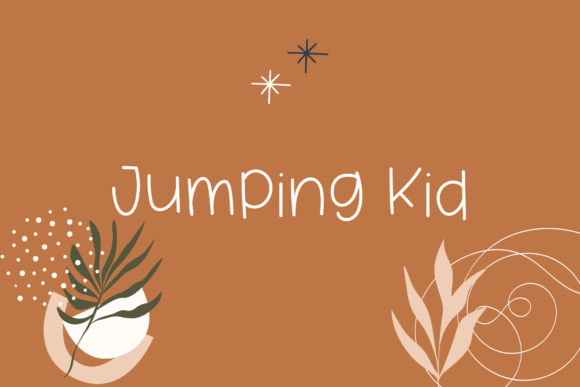
Jumping Kid Font: The Ultimate Guide to This Cute Handwritten Font
In the world of digital design, fonts play a crucial role in conveying emotions and setting the tone for various projects. One such font that has gained popularity among designers and crafty enthusiasts is the Jumping Kid Font. This cute handwritten font has become a favorite among many for its playful and energetic vibe, making it perfect for a wide range of applications. In this article, we’ll dive into the world of Jumping Kid Font, exploring its features, uses, and benefits.
What is Jumping Kid Font?
Jumping Kid Font is a modern, handwritten font designed to add a touch of playfulness and whimsy to various design projects. Its unique and quirky style makes it stand out from other fonts, making it perfect for those looking to add some personality to their work.
This font is characterized by its irregular lettering, varying line widths, and joyful feel. It’s reminiscent of handwritten notes and doodles, making it an excellent choice for projects that require a personal touch.
Features of Jumping Kid Font
- Handwritten style: Jumping Kid Font boasts a genuine handwritten look, making it perfect for projects that require a personal touch.
- Playful and energetic: The font’s playful and energetic vibe makes it ideal for designs that need to convey a sense of fun and excitement.
- Versatile: Jumping Kid Font can be used for a wide range of projects, from digital notes and journaling to branding and social media graphics.
- Easily readable: Despite its playful nature, Jumping Kid Font is easy to read, making it perfect for body text and captions.
Uses of Jumping Kid Font
Jumping Kid Font is an incredibly versatile font that can be used for various design projects. Here are some of the most popular uses of this font:
- Journaling and digital notes: Add a personal touch to your digital journaling and note-taking with Jumping Kid Font.
- Scrapbooking: Create beautiful and playful scrapbook pages with this font.
- Invitations and cards: Make your invitations and cards stand out with Jumping Kid Font’s playful and energetic vibe.
- Branding and marketing: Use Jumping Kid Font to add a touch of personality to your brand’s marketing materials.
- Blogging and social media: Enhance your blog posts and social media graphics with Jumping Kid Font’s unique style.
- Stickers and crafts: Use Jumping Kid Font to create fun and playful stickers and craft projects.
Benefits of Using Jumping Kid Font
Using Jumping Kid Font offers several benefits, including:
- Unique and playful style: Jumping Kid Font adds a touch of personality to your designs, making them stand out from the crowd.
- Easily readable: The font’s clear and readable style ensures that your message is conveyed effectively.
- Versatile: Jumping Kid Font can be used for a wide range of projects, making it a great addition to your font library.
- Time-saving: With Jumping Kid Font, you can create professional-looking designs quickly and easily.
Tips for Using Jumping Kid Font
Here are some tips for using Jumping Kid Font effectively:
- Pair with other fonts: Combine Jumping Kid Font with other fonts to create visually appealing designs.
- Use for headings and titles: Jumping Kid Font is perfect for headings and titles, adding a touch of personality to your designs.
- Experiment with colors: Try out different colors to enhance the playful and energetic vibe of Jumping Kid Font.
- Keep it simple: Don’t overcomplicate your design – keep it simple and let Jumping Kid Font shine.
In conclusion, Jumping Kid Font is a unique and versatile font that can add a touch of personality to various design projects. Its playful and energetic vibe makes it perfect for designs that require a fun and exciting feel. With its easily readable style and wide range of uses, Jumping Kid Font is an excellent addition to any font library.